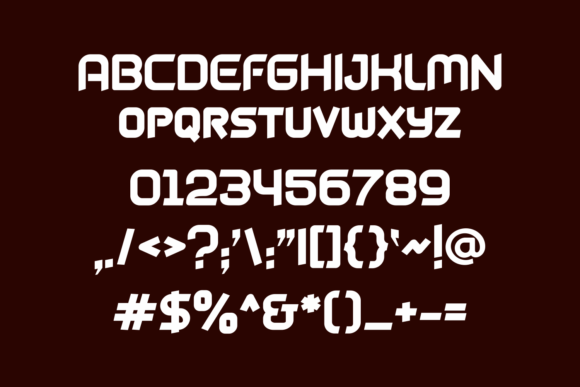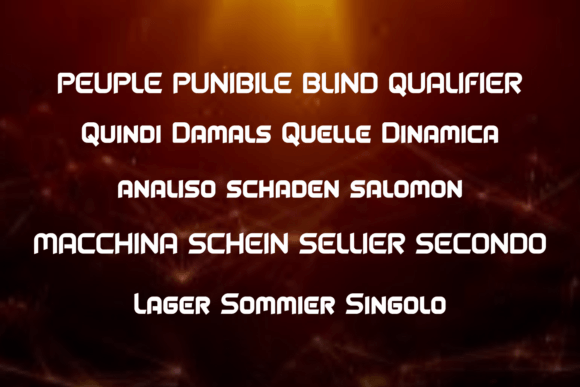
Introduction to Paengs Font
Remember that moment when you’re working on a creative project, and you need the perfect font to bring your vision to life? It’s a feeling of excitement and anticipation, knowing that the right font can make all the difference. For designers, finding that elusive perfect font can be a game-changer, and that’s exactly what Paengs Font offers.
Paengs Font is a cool and unique display font that’s been carefully crafted to deliver high-quality results. Its detailed design makes it a valuable asset for any project, from digital art to print materials. Whether you’re working on a graphic design project or need a font for a social media post, Paengs Font is sure to impress. With its versatility and aesthetic appeal, it’s no wonder designers are turning to Paengs Font as a go-to design resource.
Key Features of Paengs Font
- High-quality vector design for a creative project, suitable for various applications including logos, graphics, and illustrations.
- Available in a transparent background, allowing for seamless integration with different design elements and backgrounds.
- Includes a range of font styles and weights, offering flexibility for various design needs.
- Resolution-independent, ensuring crisp and clear display regardless of the output resolution.
- Designed with a unique and creative flair, making it an ideal choice for designers looking to add a distinctive touch to their work.
Honest Review: Paengs Font
As a designer, I’m always on the lookout for high-quality design resources to enhance my creative projects. Recently, I came across the Paengs Font, and I must say it’s been a game-changer. ✨
- Unique Design: Paengs Font boasts an elegant and modern design that’s perfect for various applications, from branding to digital interfaces.
- Transparent Background: The font’s transparent background makes it easy to work with and allows for seamless integration with any design element.
While Paengs Font is an excellent addition to any design toolkit, there are a few limitations to consider: ⚠️
- Limited Character Set: The font’s character set is relatively small, which may limit its use in certain creative projects.
- Not Ideal for Body Text: Paengs Font is best suited for headlines and titles due to its large x-height and ornate design.
Overall, Paengs Font is a valuable design resource that can elevate your creative projects with its high-quality design and transparent background. While it may have some limitations, its free download and versatility make it an excellent choice for designers looking for a unique and modern font.
How to Use Paengs Font
The Paengs Font is a unique and creative design resource that can elevate your high quality projects to the next level. With its transparent background and sleek design, this font is perfect for a variety of applications.
Experiment with different font sizes and colors to create a unique look. Use it in combination with other design elements to add depth and visual interest.
The Paengs Font is perfect for a variety of applications, including:
– Social media graphics
– Presentations
– Documents
– Branding materials
Alternatives to Paengs Font
Pacifico is a beautiful, high-quality script font ideal for creative projects that require a touch of elegance. It’s perfect for wedding invitations, event promotions, or any design that needs a sophisticated feel. Unlike Paengs Font, Pacifico is more refined and suitable for formal designs, making it a great alternative for designers who want to create a more professional look.
Great Vibes is a modern, high-quality script font that’s perfect for creative projects that require a fun and playful touch. It’s great for social media graphics, blog posts, or any design that needs a lively feel. Compared to Paengs Font, Great Vibes is more energetic and suitable for designs that require a sense of excitement.